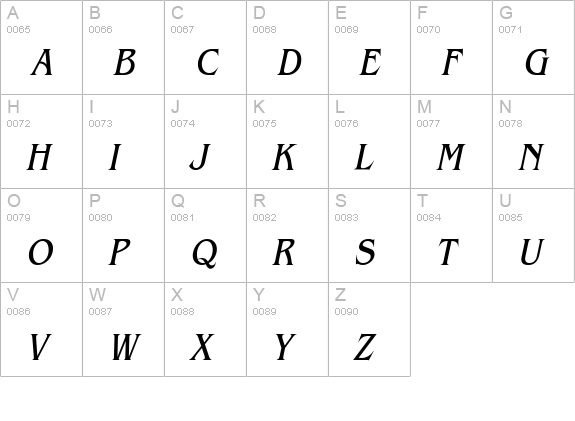
Bangle Condensed Italic is a distinctive, condensed-width, italic variant in the Bangle typeface family \xE2\x80\x94 well suited to design and typography projects.
Bangle Condensed Italic font is a sleek and modern typeface that exudes elegance and sophistication. Its slanted design adds a touch of flair to any design project, making it perfect for signage, branding, and editorial purposes. The condensed style of this font allows for efficient use of space without compromising on readability. What's even better is that Bangle Condensed Italic font is available for free download at FontsMarket.com. This means you can easily enhance your projects with this stylish typeface without breaking the bank. Don't miss out on the opportunity to add a touch of class to your designs with this exquisite font!